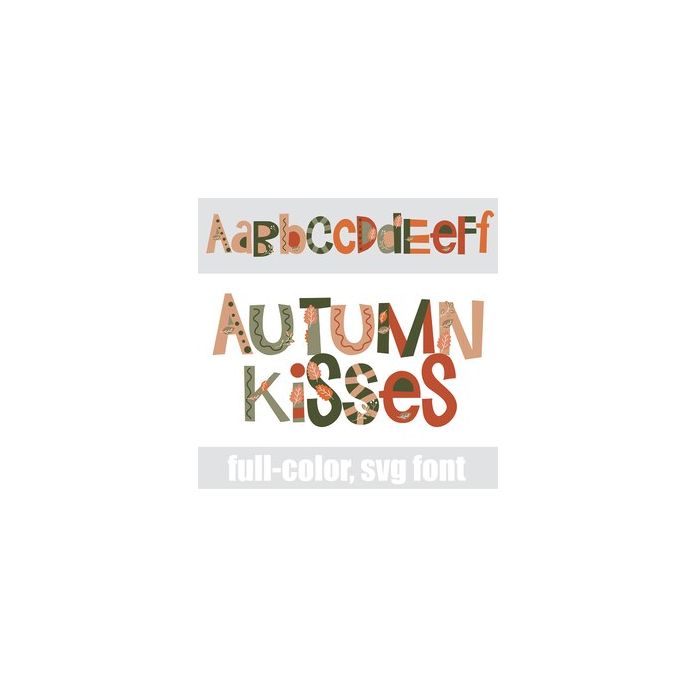
This full-color font features crafty, multi-colored lettering with autumn leaves. There is an alt case w/ additional colors you can access through your system or Silhouette's glyph map.